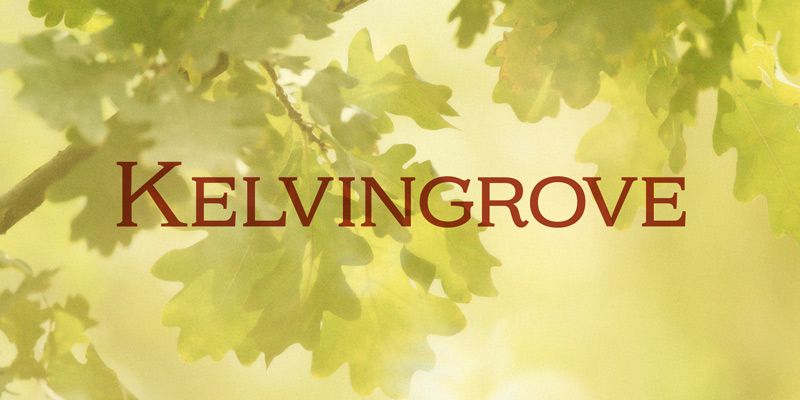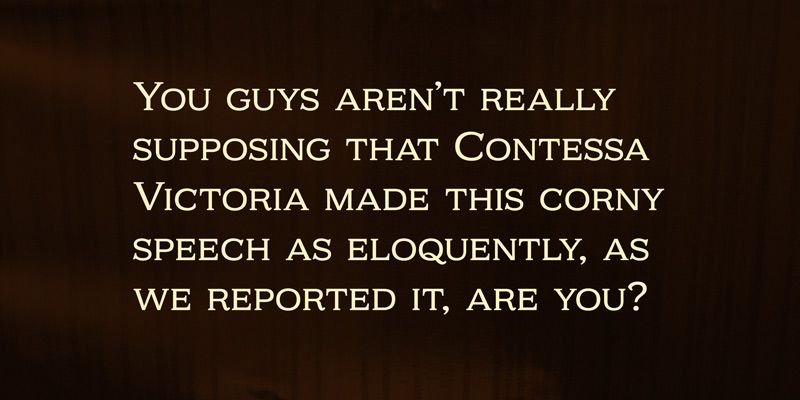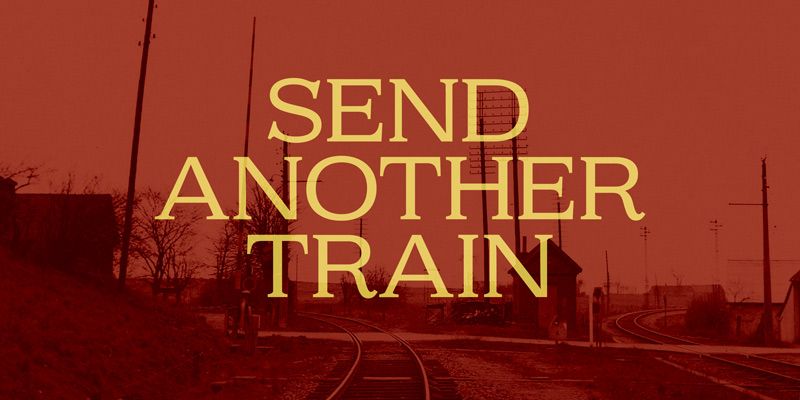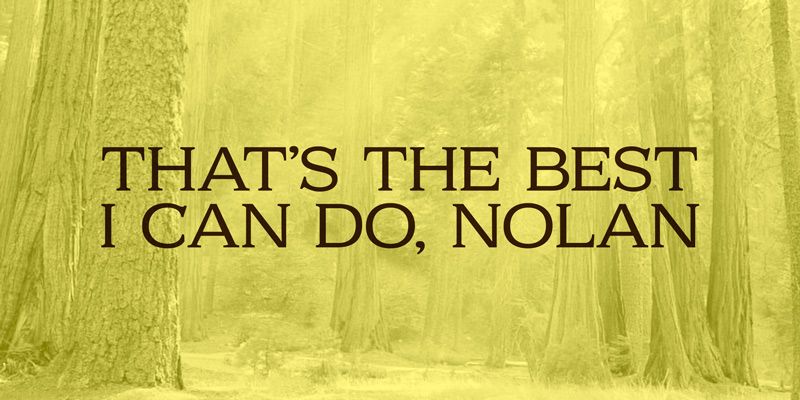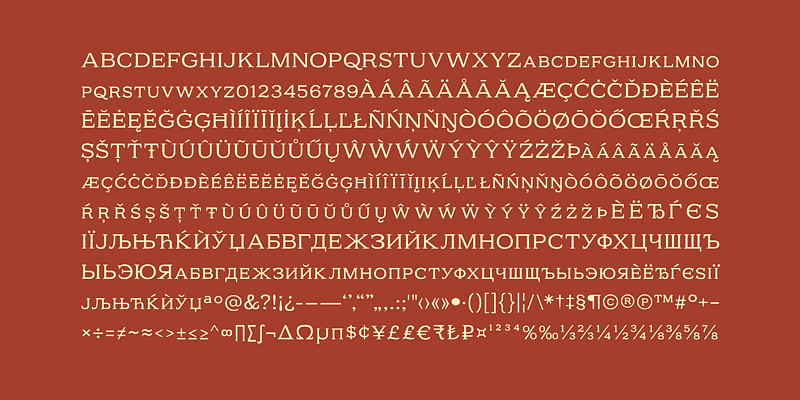
Kelvingrove gives formal display lettering a built-in hierarchy. Its Copperplate-like structure combines full capitals with smaller capital forms, allowing initials and important words to rise above the rest of a line without changing typefaces. Numerals are balanced to sit with either size of capital, making the face useful for dates, editions, room numbers, and commemorative names. Alternate swash K, Q, and R forms, plus a smaller ampersand, let a short title take a more ceremonial turn. Set Kelvingrove where those details can be seen: invitations, plaques, book covers, hotel names, and institutional display work.